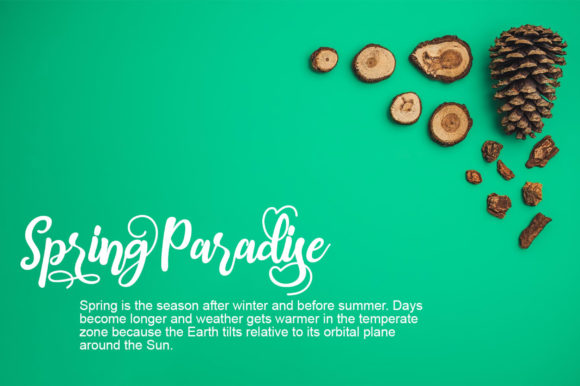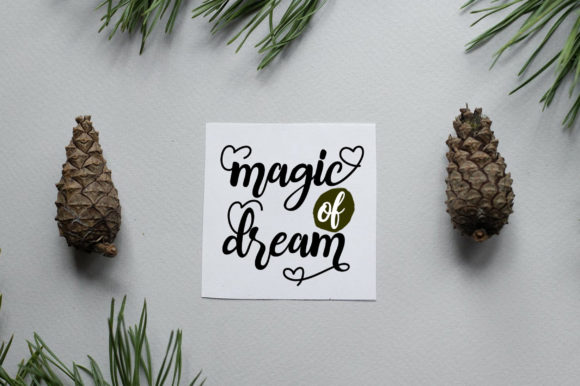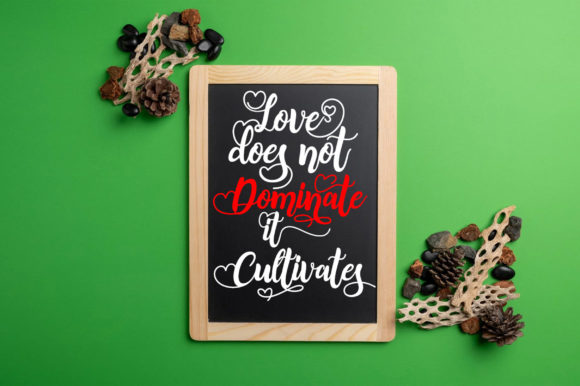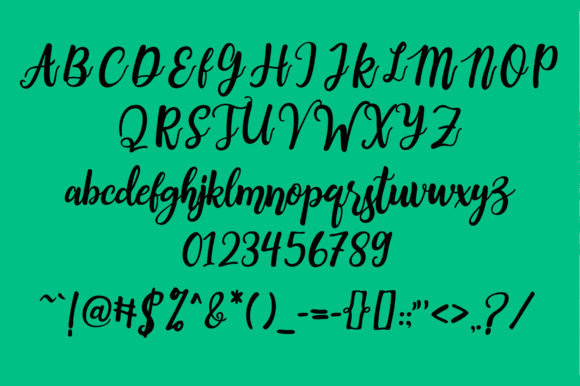
Warm Spring Font
About Warm Spring Font
Warm Spring is a beautiful and refined script font. It has a classy, elegant and modern look that can be used for logos, branding, invitations, stationery, wedding designs, social media posts, and much more!